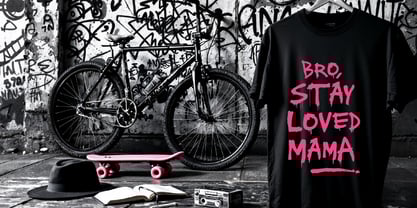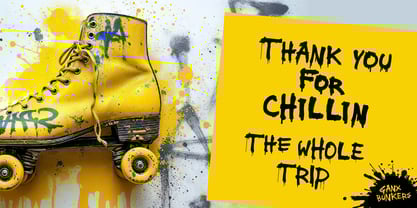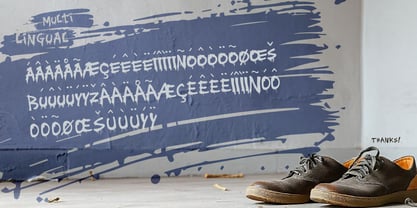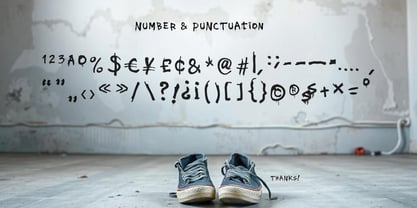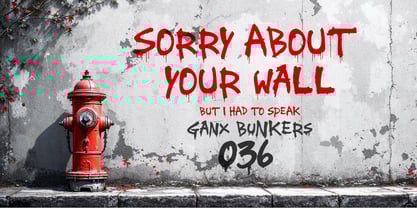
Ganx Bunkers
Die Schriftfamilie Ganx Bunkers wurde von Yuniardi Wibowo entworfen und von Sanskertype Studio veröffentlicht. Ganx Bunkers enthält 1 Stile. Mehr über diese Familie
Ganx Bunkers is a bold and electrifying spray paint font that embodies raw energy and urban artistry. Designed with dynamic, hand-crafted spray strokes and distinctive letterforms, this font channels the essence of street culture—rebellious, fearless, and full of character.
Infused with the grit and authenticity of real graffiti, Ganx Bunkers mirrors the look of paint splashed onto concrete walls, city alleyways, and underground scenes. It’s more than just a typeface; it’s a voice of self-expression, breaking boundaries and making a statement.
Ideal for high-impact projects, this font is perfect for posters, edgy branding, streetwear designs, book covers, movie titles, and eye-catching quotes. Whether you want to inject an urban edge into your work or create visuals that demand attention, Ganx Bunkers delivers a rebellious, street-art-inspired aesthetic with undeniable attitude.